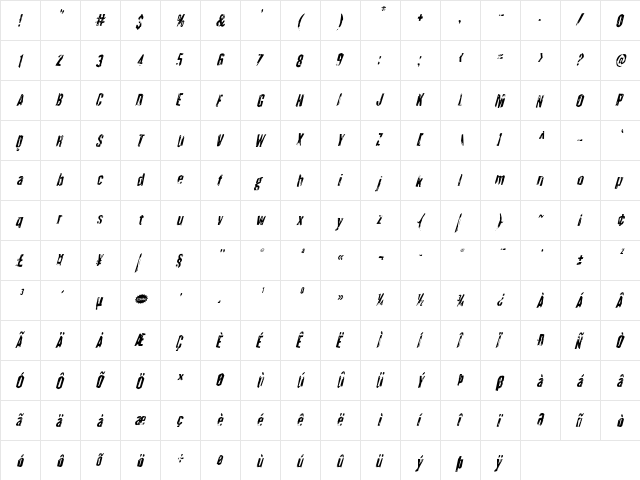
Quarrystone Condensed Italic Font Preview
Design Context for Quarrystone Condensed Italic Typeface
Quarrystone Condensed Italic is a composed and adaptable typeface that performs quietly and consistently across a wide range of design contexts. The dynamic lean of this cut emphasises speed and emphasis in any layout. Its narrow stance lets it pack a punch even in space-constrained designs.
Pro Tip: Try Quarrystone Condensed Italic for annotation and caption copy alongside an upright companion — the contrast in angle creates a dynamic but ordered typographic system.